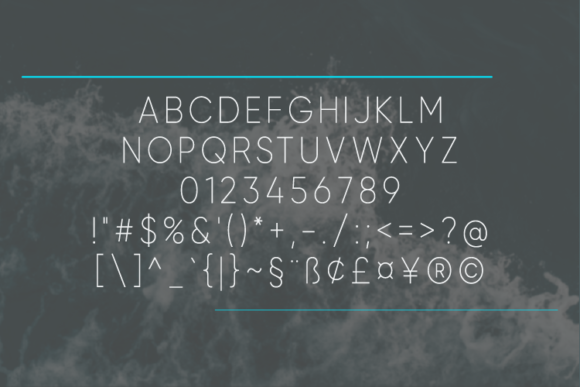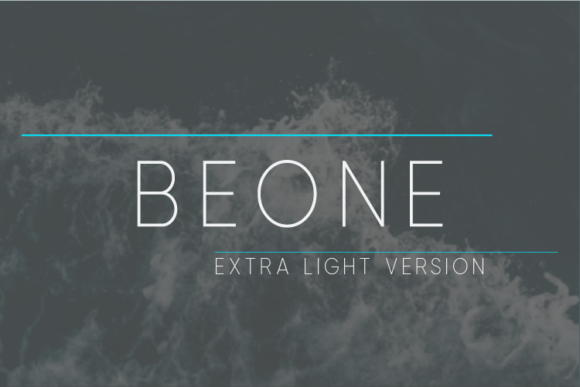
Introducing Beone Extra Light Font: Elevate Your Designs with a Touch of Modern Minimalism
In the world of design, fonts play a crucial role in conveying the message and aesthetic of a brand. For designers and crafters looking for a modern sans serif font that embodies the essence of trendy minimal branding, natural cosmetic packaging design, and creamy neutral shades, Beone Extra Light is the perfect addition to your typography arsenal.
The Inspiration Behind Beone Extra Light
Beone Extra Light is a font that draws inspiration from the latest trends in minimal branding. Its design is characterized by clean lines, simple shapes, and a neutral color palette that exudes a sense of sophistication and elegance. This font is perfect for designers who want to create a professional and modern look for their projects, whether it’s for a brand identity, packaging design, or marketing materials.
Key Features of Beone Extra Light Font
- Modern Sans Serif Design: Beone Extra Light features a contemporary sans serif design that is both clean and elegant.
- Trendy Minimal Branding: This font is perfect for designers who want to create a modern and minimalist look for their brands.
- Inspired by Natural Cosmetic Packaging Design: Beone Extra Light’s design is influenced by the natural and organic look of cosmetic packaging, making it ideal for beauty and wellness brands.
- Creamy Neutral Shades: The font’s design is characterized by a neutral color palette that is reminiscent of creamy shades, perfect for creating a soft and soothing visual identity.
Why Choose Beone Extra Light Font?
Beone Extra Light is more than just a font – it’s a design solution that can elevate your projects to the next level. Here are some reasons why you should consider using Beone Extra Light:
- Professional Look: With Beone Extra Light, you can give your projects a professional and modern look that is sure to impress.
- Versatility: This font is versatile and can be used for a variety of design projects, from branding and packaging to marketing materials and more.
- Ease of Use: Beone Extra Light is easy to use and can be easily integrated into your design workflow.
- Unique Design: This font has a unique design that sets it apart from other sans serif fonts, making it perfect for designers who want to create a distinctive look.
Tips for Pairing Beone Extra Light with Other Fonts
Beone Extra Light can be paired with other fonts to create a unique and visually appealing typography. Here are some tips for pairing Beone Extra Light with other fonts:
- Pair with Bold Fonts: Pair Beone Extra Light with bold fonts to create a striking contrast that adds visual interest to your designs.
- Pair with Script Fonts: Pairing Beone Extra Light with script fonts can add a touch of elegance and sophistication to your designs.
- Experiment with Font Sizes: Experiment with different font sizes to create a visually appealing hierarchy of typography.
Beone Extra Light is a modern sans serif font that is perfect for designers and crafters looking for a professional and elegant typography solution. With its clean design, trendy minimal branding inspiration, and versatility, Beone Extra Light is sure to elevate your designs to the next level. Try Beone Extra Light today and give your projects a professional look that is sure to impress.